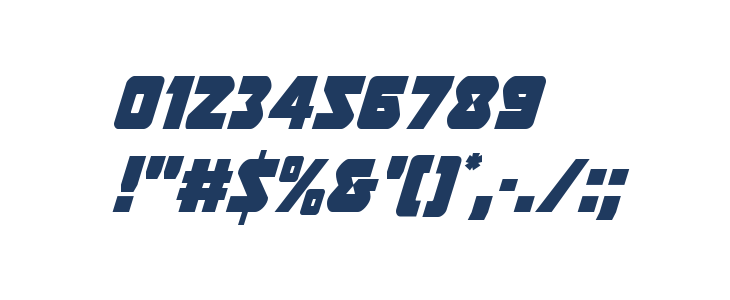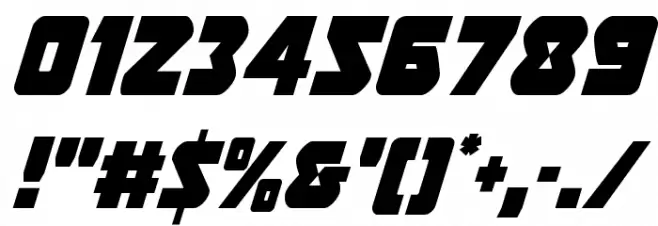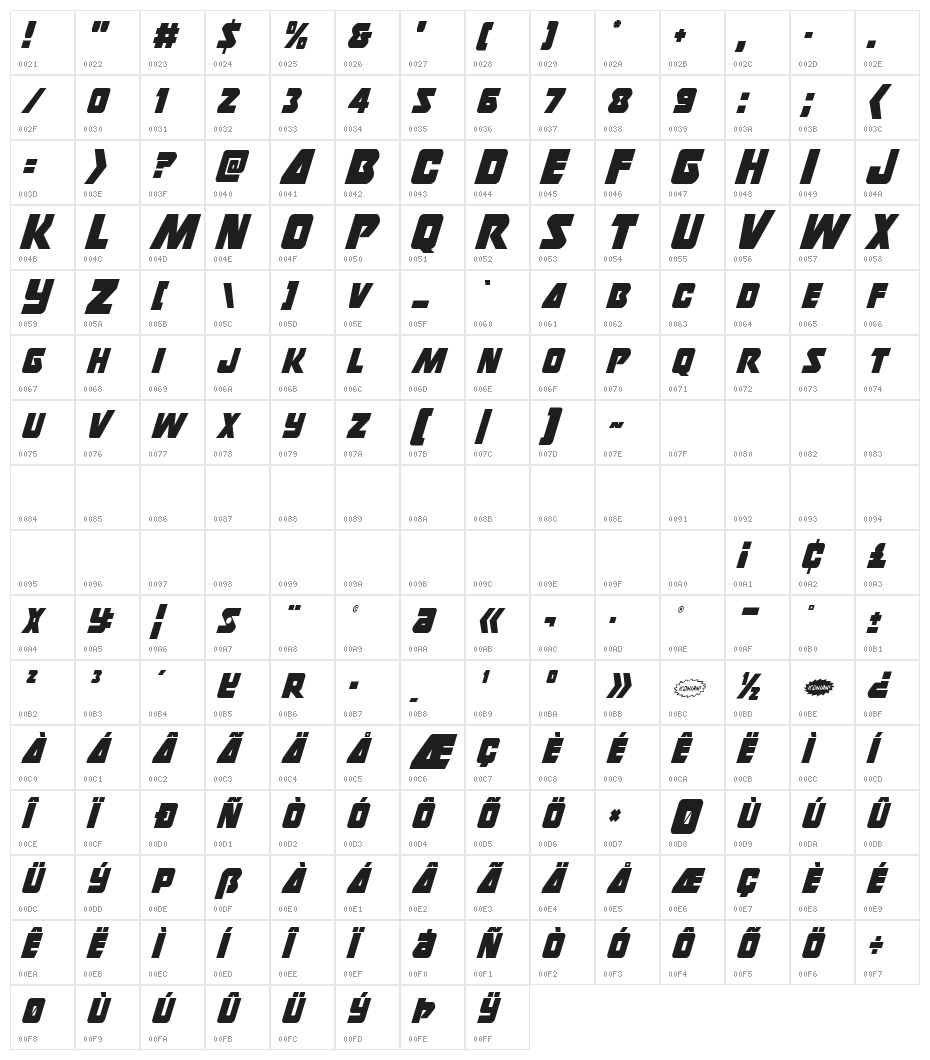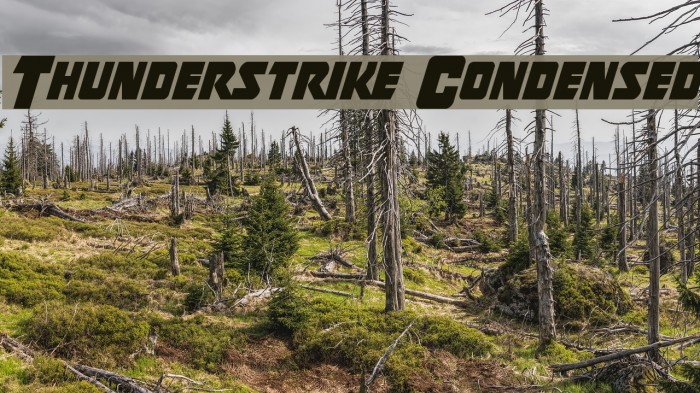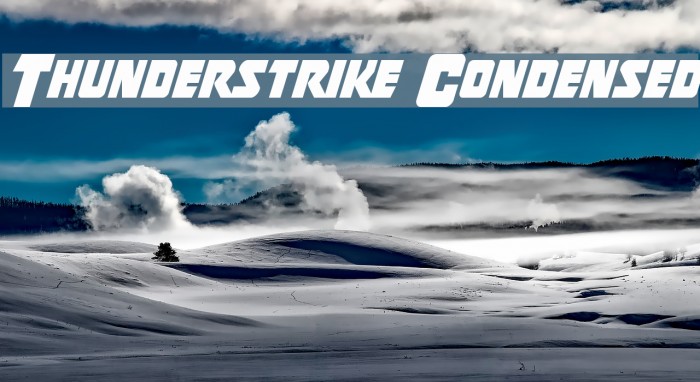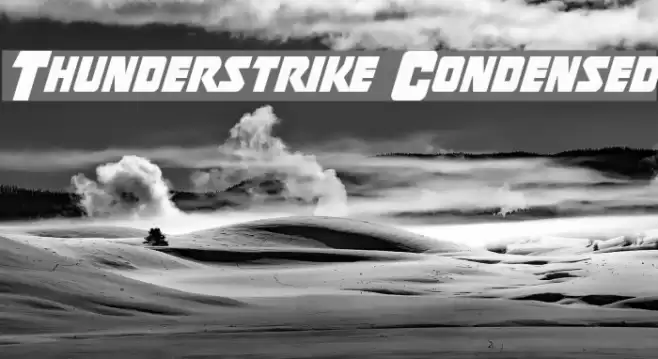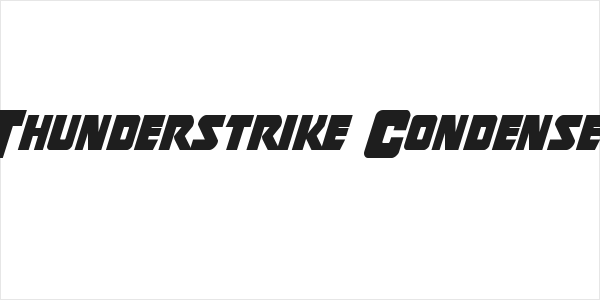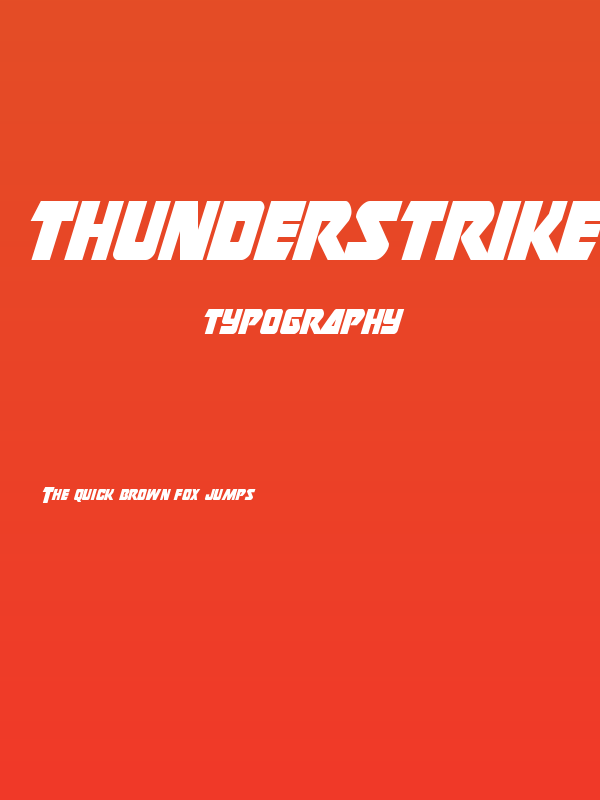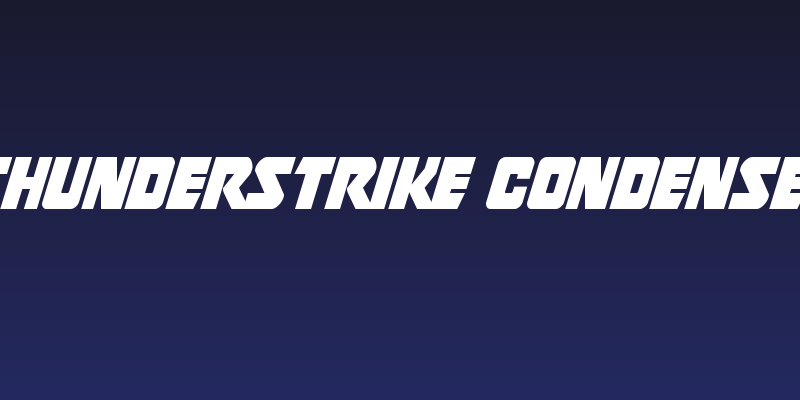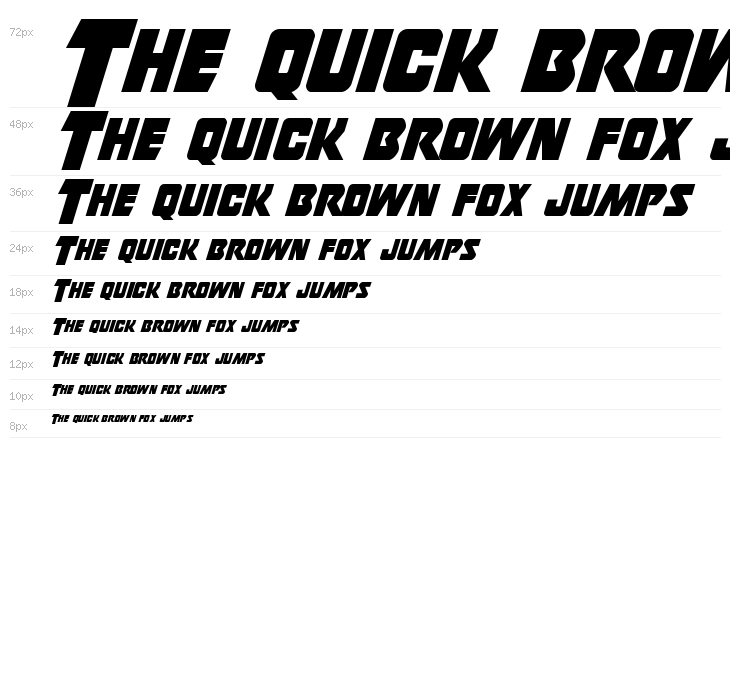
Thunderstrike Condensed Font
Thunderstrike Condensed Description
This font features a bold, condensed style with sharp, angular edges that convey a sense of power and dynamism. The uppercase letters are particularly striking, with a forward-leaning slant that suggests movement and speed. The lowercase letters maintain the same boldness and angularity, ensuring consistency across the typeface. Numbers and special characters are designed with the same attention to detail, making them suitable for impactful displays. The overall design is modern and aggressive, ideal for projects that require a strong visual presence.
| Proposed Projects | Ideal for sports branding, action movie posters, video game titles, and dynamic advertising campaigns. |